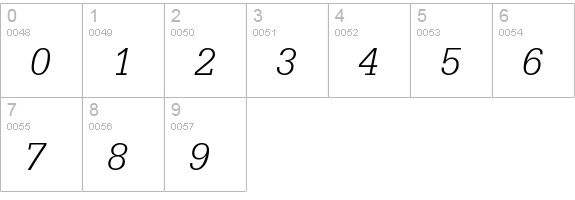
Metron Light SSi Light Italic Font Details
Metron Light SSi Light Italic is a refined, elegant, italic variant in the Metron typeface family \xE2\x80\x94 well suited to elegant body text, refined sub-headings, and luxury branding.
Metron Light SSi Light Italic is a beautifully crafted font that exudes elegance and sophistication. Its slender and stylish italicized design adds a touch of modern flair to any project, making it perfect for use in branding, advertising, and editorial design. The delicate curves and subtle angles of this font create a sense of movement and grace, making it a versatile choice for a wide range of applications. What sets Metron Light SSi Light Italic apart is that it is available for free download at FontsMarket.com. This means you can easily access and use this stunning font in your designs without any hassle or cost. Whether you're working on a personal project or a professional assignment, Metron Light SSi Light Italic is sure to elevate your work with its refined aesthetics and contemporary appeal. Download this font today and unleash your creativity with this gorgeous typeface.